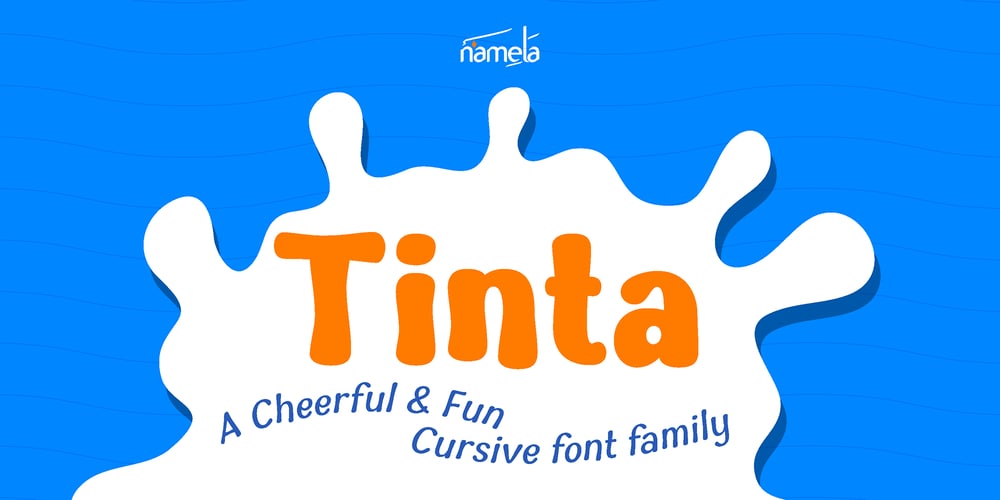
Tinta Font Family was designed by Nur Syamsi, Bustanul Arifin and published by NamelaType. Tinta contains 14 styles and family package options. Tinta is A Cheerfull font Family. Inspired by handwritten lettering touch. Tinta means ‘ink’, The terminal of each character is formed like flowing ink, Comes with 6 weight variants from Light to ExtraBold, each has Oblique version.Tinta can be use for Headline, branding, packaging, advertising, quotes and where ever you need fun and playful design